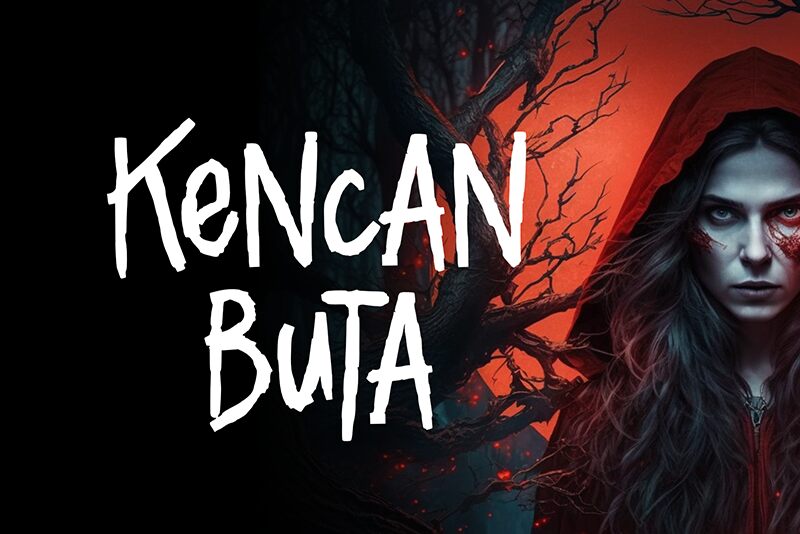
Fakeblood
Fakeblood font by Horror Font is a condensed display typeface that frightens its audience with a rugged, chaotic appearance. Its grunge-inspired, scary style is emphasized by its handcrafted feel and unconventional aesthetic which adds an additional layer of eccentricity. The thickness of the strokes varies with sharp edges shaping up almost every character.